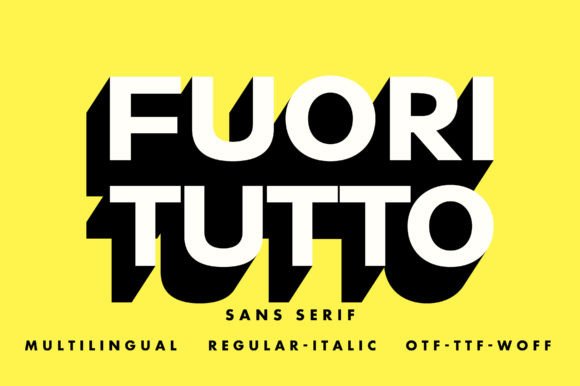
In a world saturated with visual clutter, seize the power of simplicity with “Fuori Tutto�, the minimalist sans serif font that distils typography to its core essence. Embrace the elegance of clean lines and geometric precision as this typeface transforms your designs into a symphony of modern sophistication.
Minimalism is not merely a trend; it's a philosophy that celebrates clarity and purpose. “Fuori Tutto� embodies this philosophy, stripping away ornamentation to reveal the raw beauty of form. Its unadorned letterforms exude an air of confidence and authority, ensuring that your message cuts through the noise and resonates with your audience.
As a designer, you understand the importance of legibility. “Fuori Tutto� takes this principle seriously, ensuring that every character is crafted with meticulous attention to detail, guaranteeing effortless readability even in the smallest font sizes. Whether you're crafting headlines that demand attention or body text that guides with grace, this typeface adapts seamlessly to your design vision.
With its clean and contemporary aesthetic, “Fuori Tutto� is the perfect choice for a wide range of design projects. From branding and logos to websites and social media graphics, this versatile typeface adds a touch of modern elegance to any context. Its minimalist approach allows your content to take center stage, free from distractions, ensuring that your message is conveyed with clarity and impact.
Join the growing community of designers who have embraced the power of simplicity with “Fuori Tutto.� Experience the joy of creating designs that are both visually stunning and effortlessly readable. As a font crafted by Minimalistartstudio, renowned for their dedication to minimalist aesthetics, “Fuori Tutto� is a testament to the enduring power of clean design.